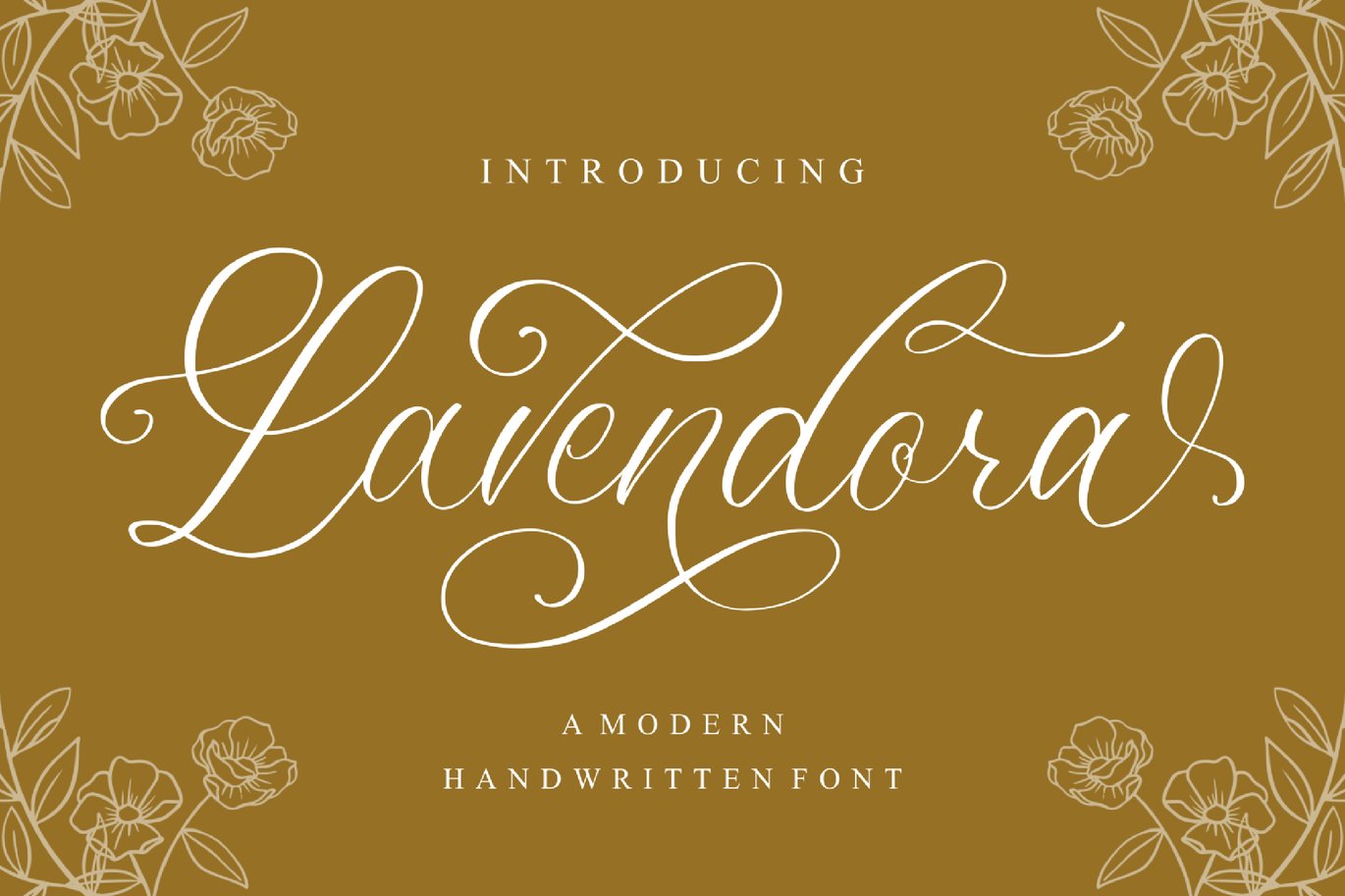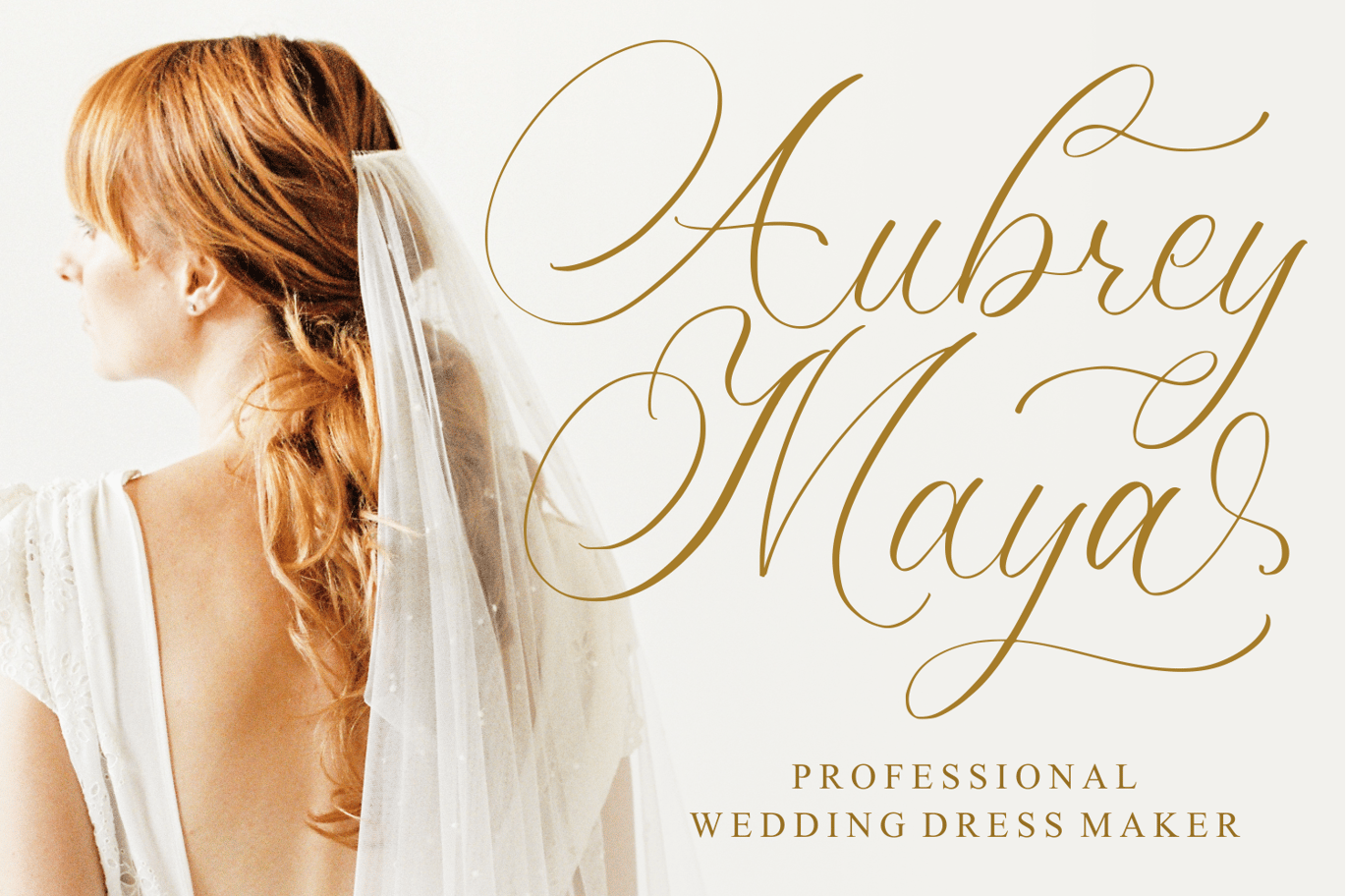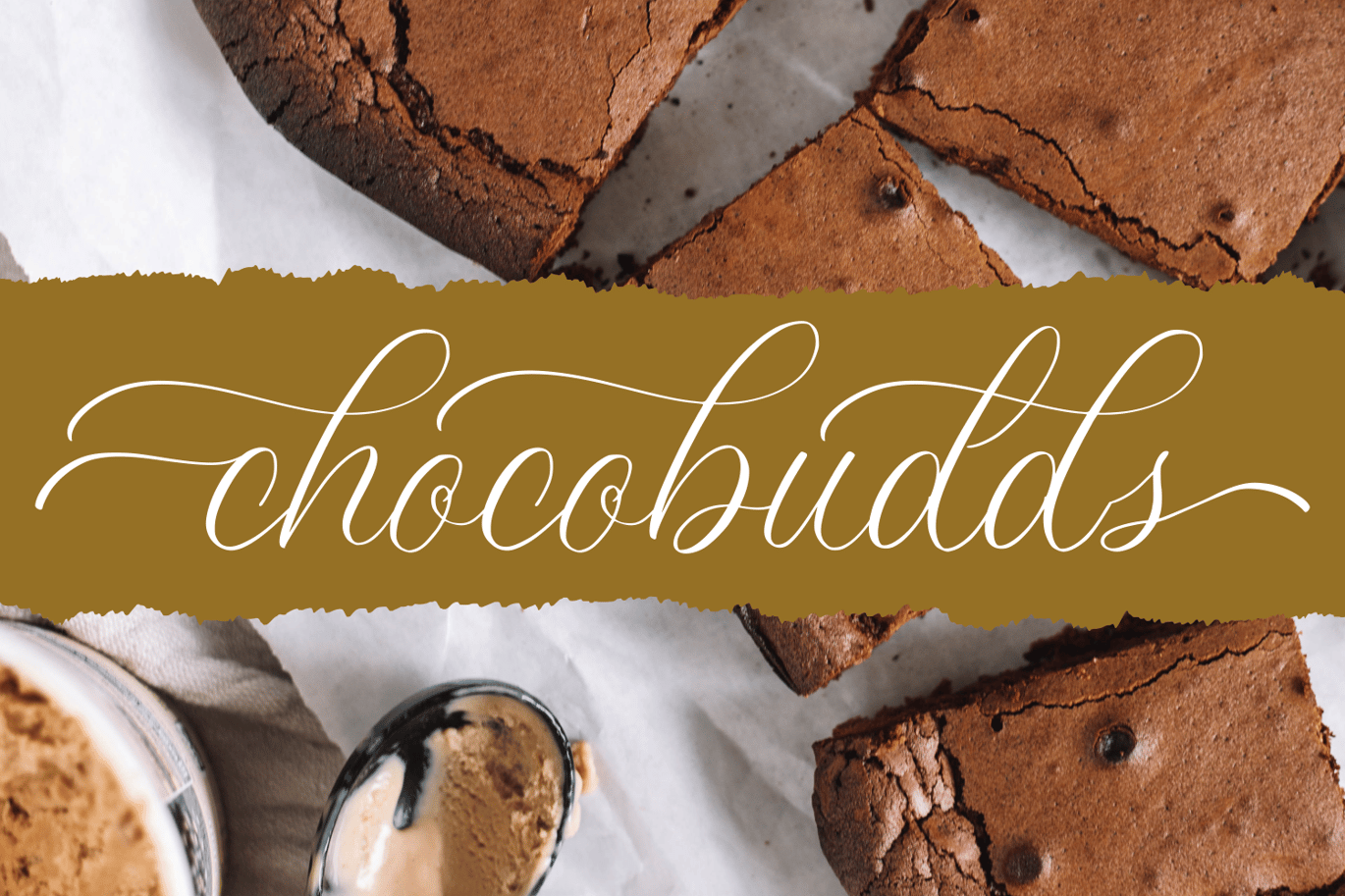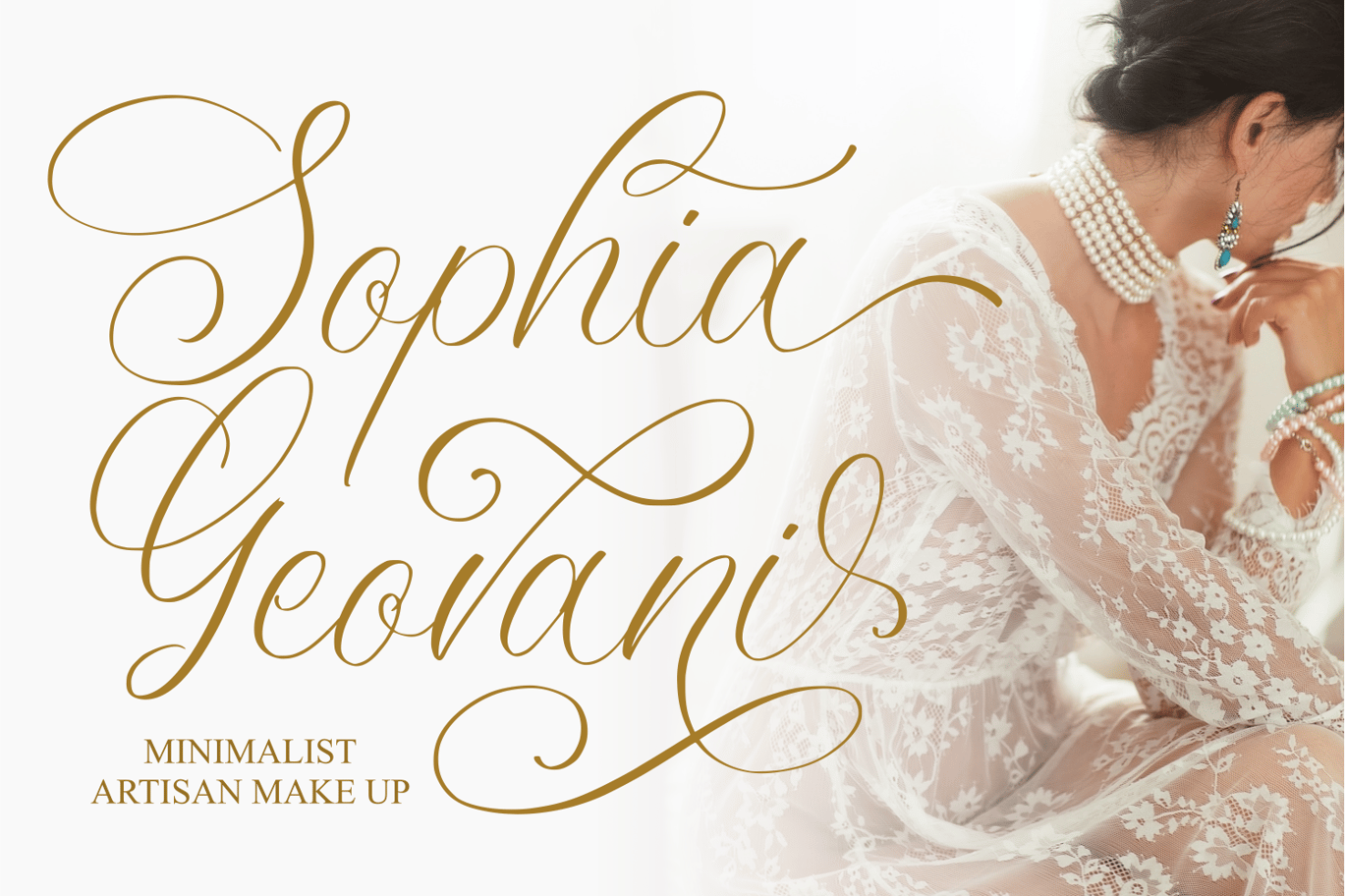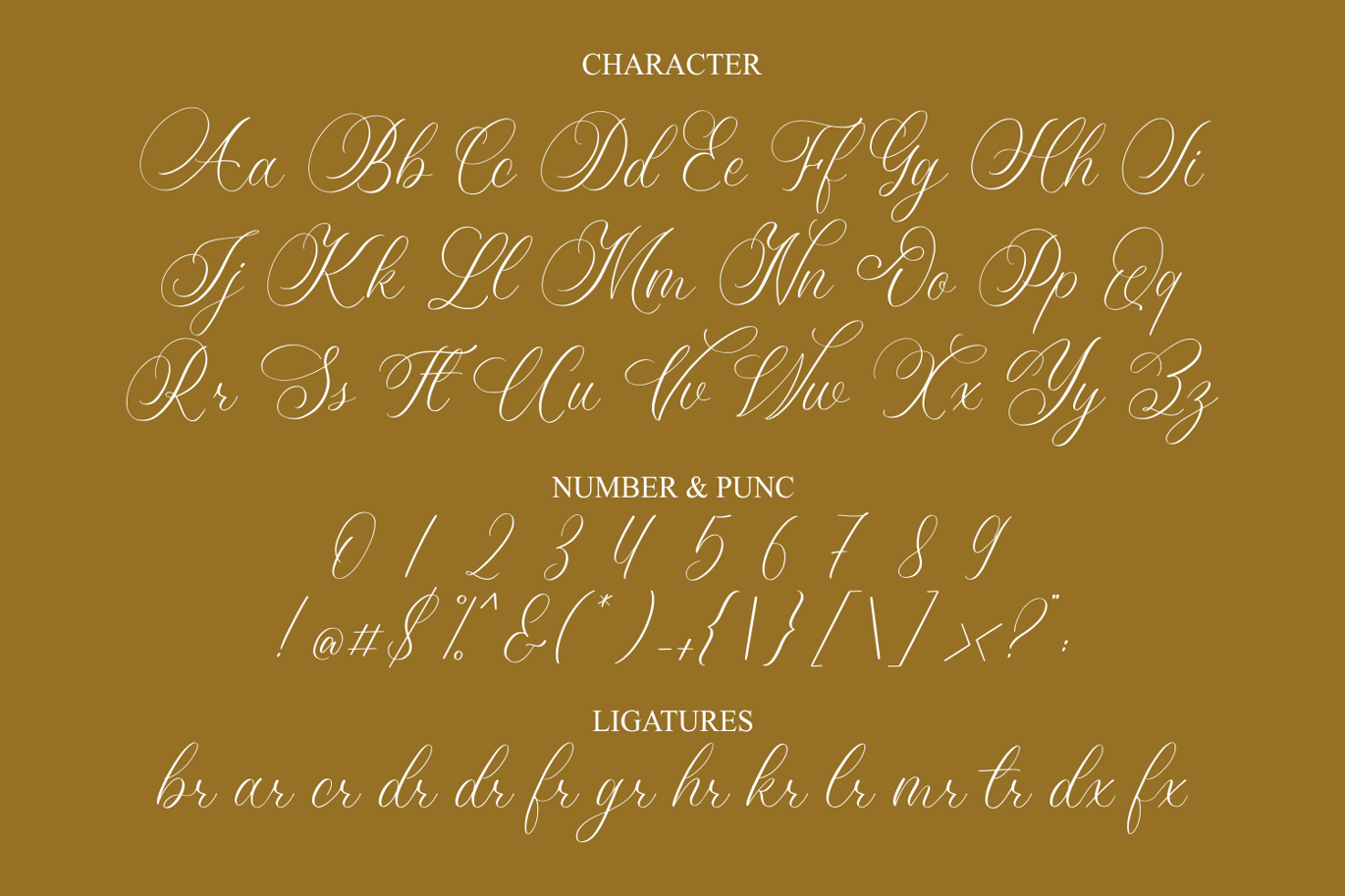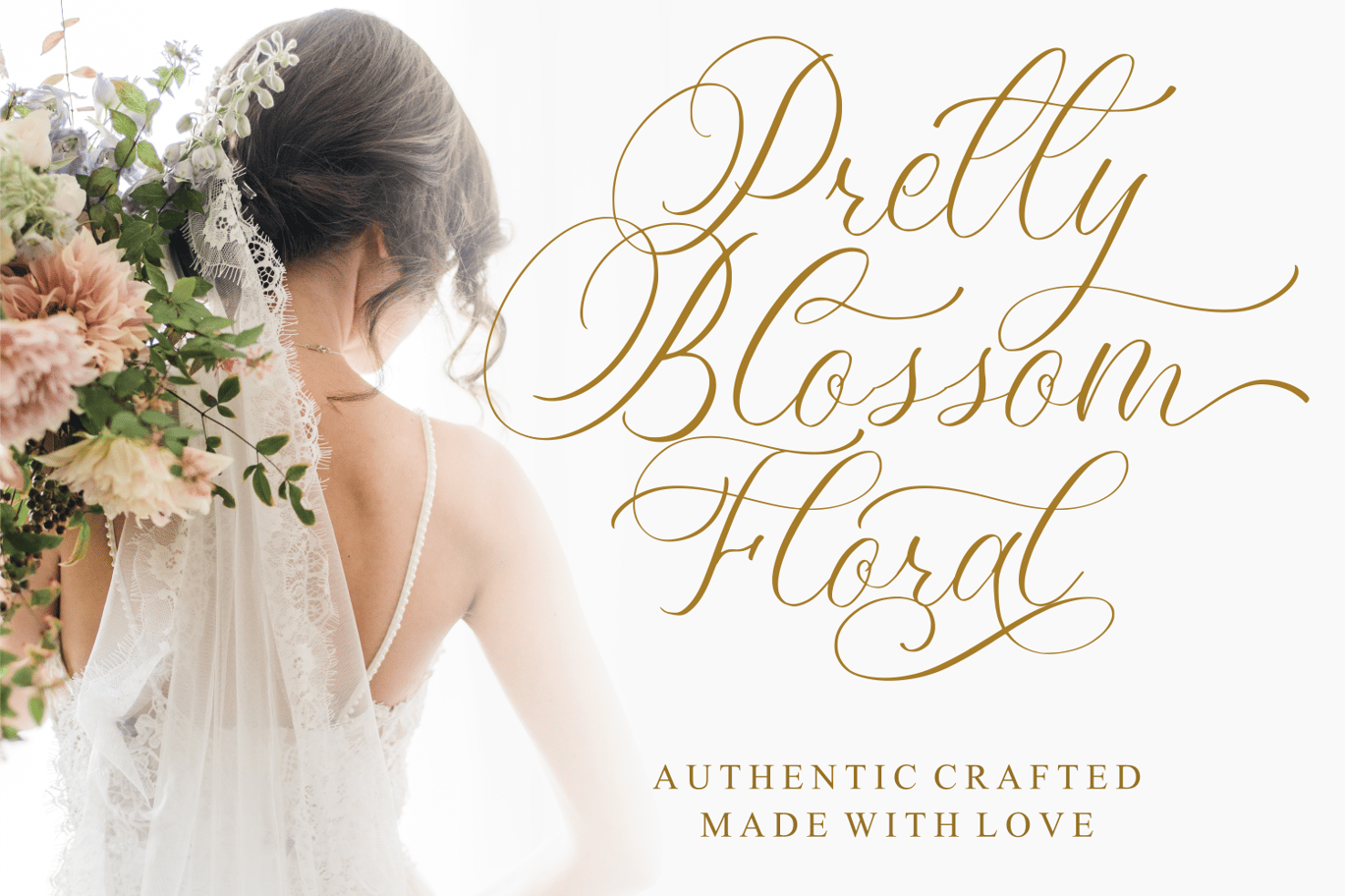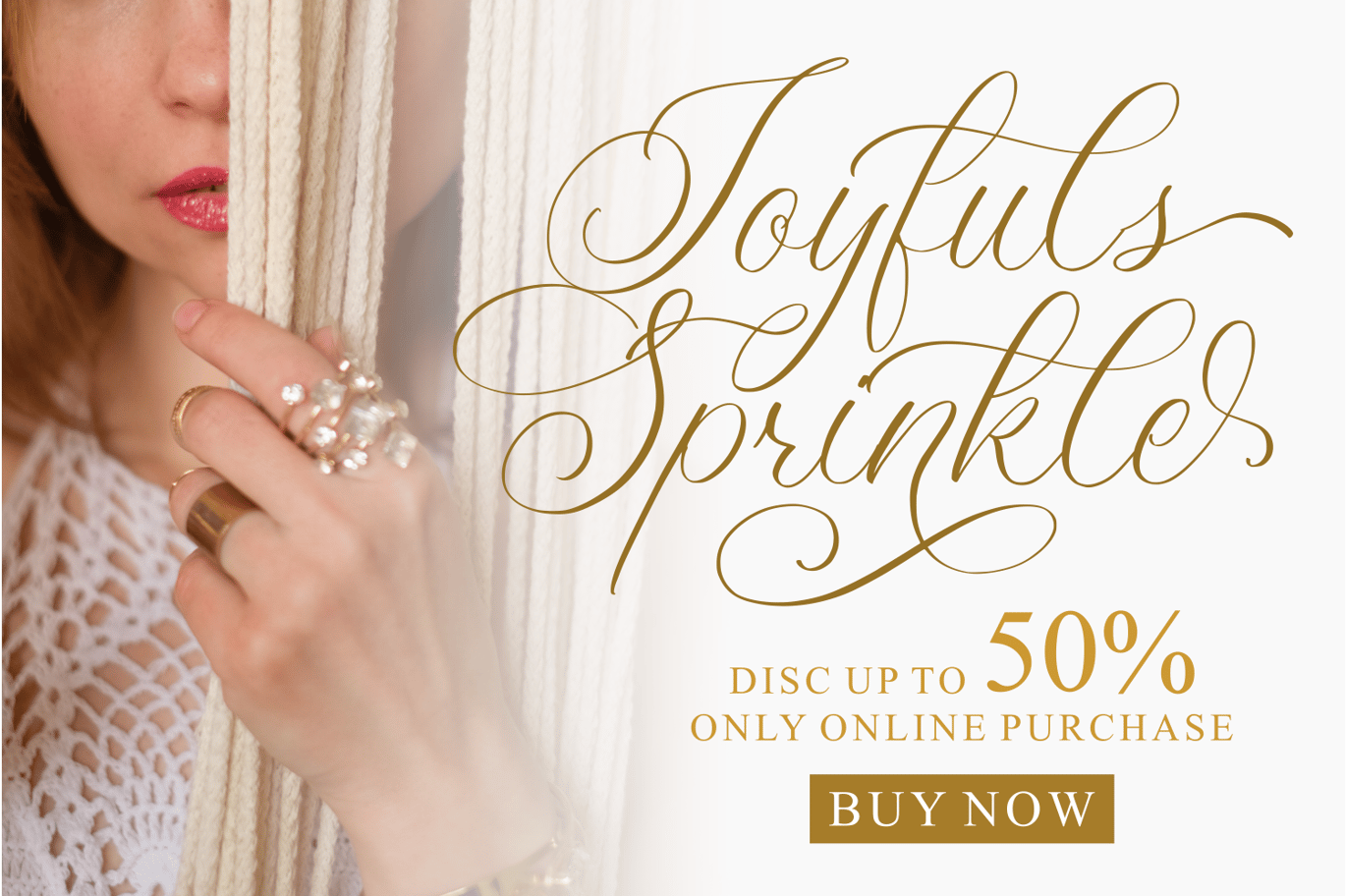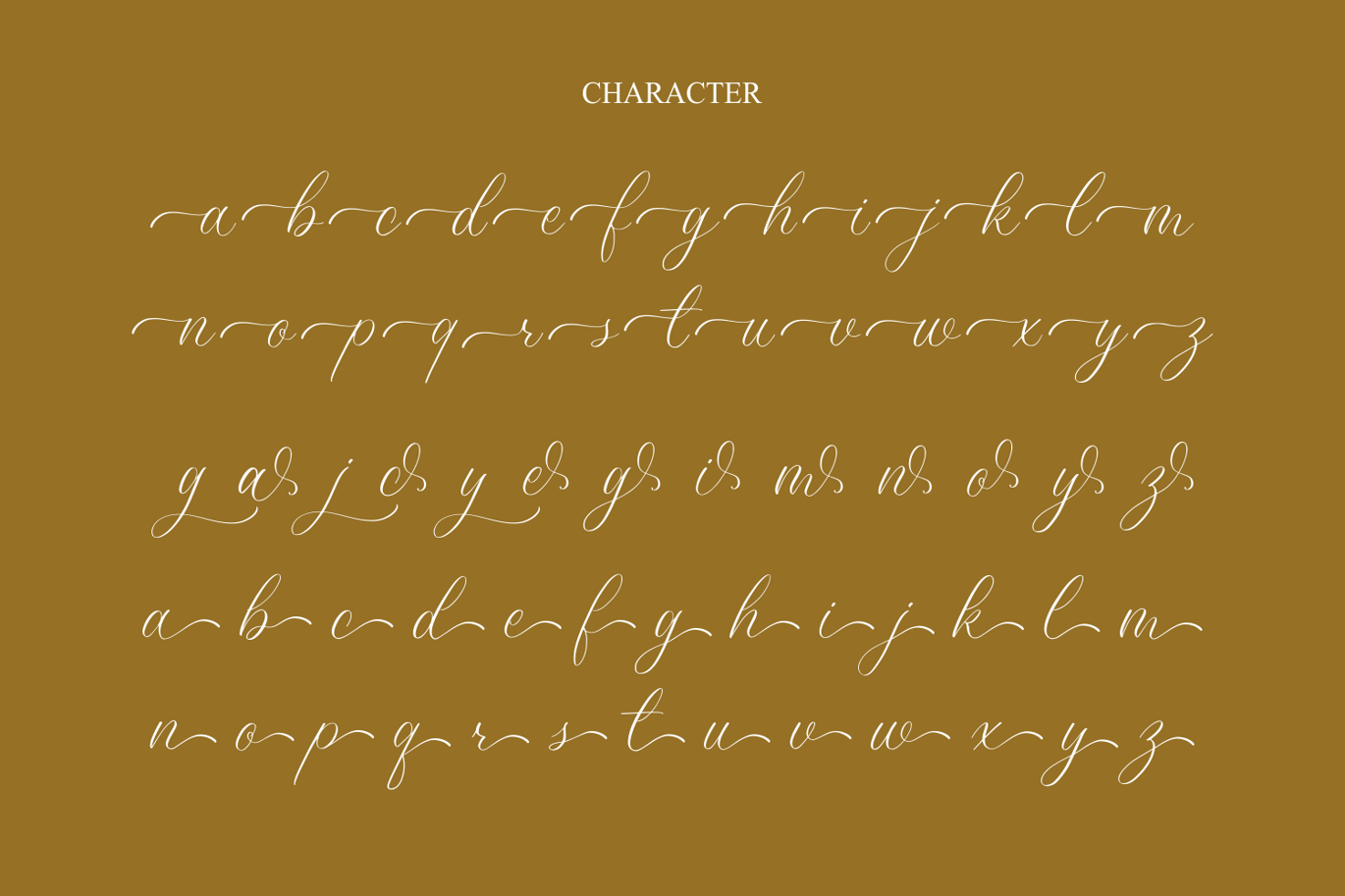
Lavendora – Calligraphy Font
Lavendora is a thin lettered and graceful script font. Fall for its ravishing style and use it to create gorgeous wedding invitations, beautiful stationary art, eye-catching social media posts, and much more!
- Modern Handwritten Font
- Beautiful Swash (Ending tail)
- Beautiful Titling (Beginning tail)
- Special Ligatures